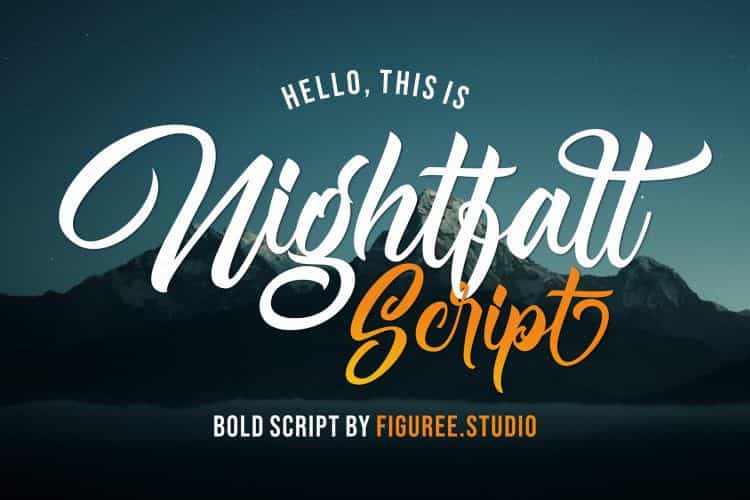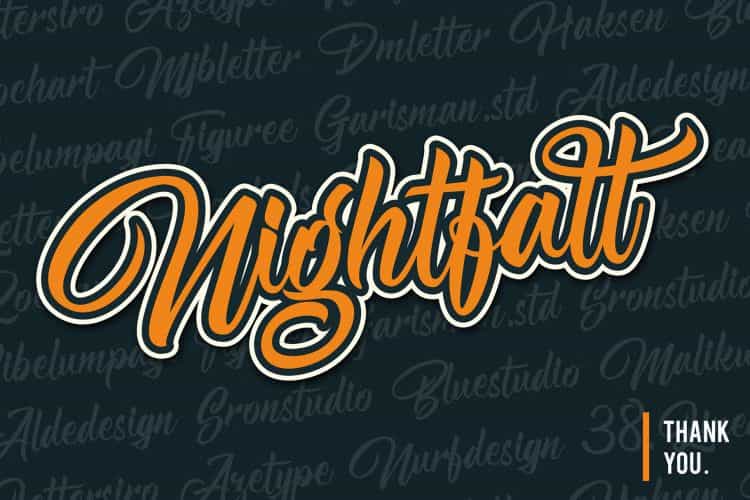
Nightfall Font- Here is another calligraphic typeface that can be useful for your next project. Nightfall influenced by lettering style of script font that sharp and marvelous to make fonts that are contemporary, fashionable and classy like urban script font.